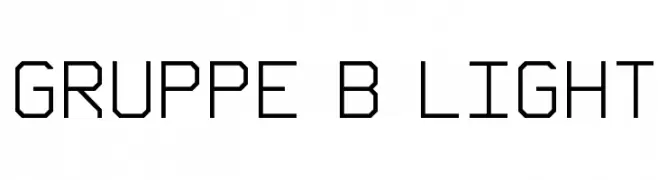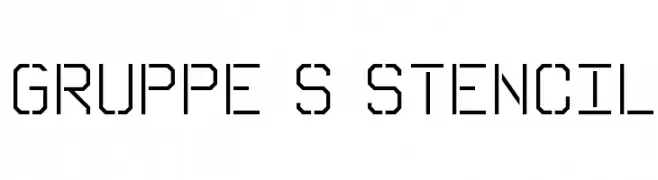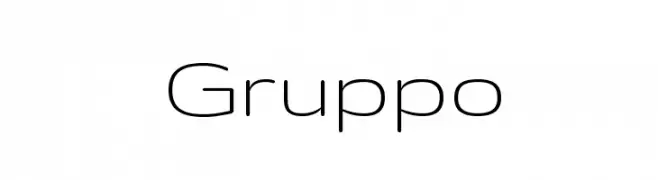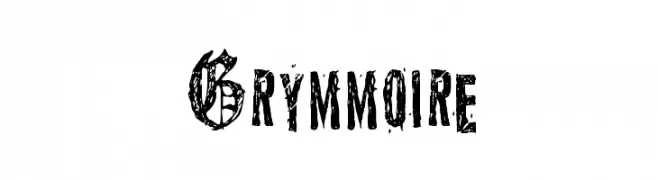
A geometric, technical font with angular, precise letterforms and uniform stroke width.
A geometric, technical font with clean lines and angular shapes.
A bold, geometric font with an industrial and modern design.
A modern, geometric stencil font with a technical and industrial aesthetic.
A modern, geometric sans-serif font with clean lines and balanced spacing.
A bold, retro font with playful, wavy contours and a psychedelic style.
A bold, angular font with a modern and dynamic design.
A bold, Gothic-inspired font with ornate detailing and a dramatic flair.
A bold, angular font with a futuristic and aggressive style.